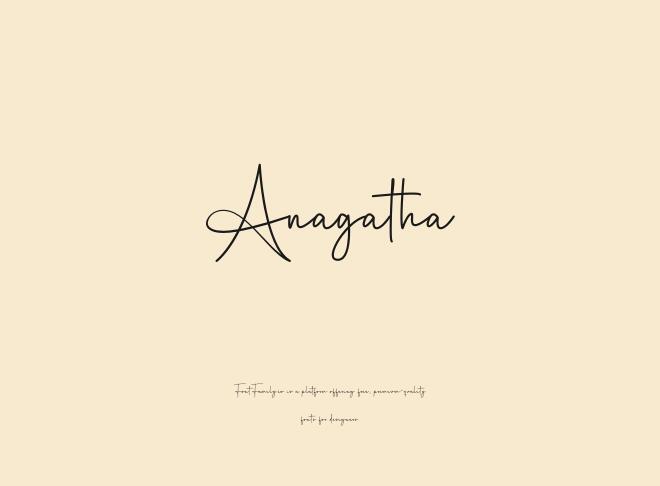
Anagatha Font
Anagatha Font is a contemporary and elegant handwriting typeface designed by the Creative Foundry. Its distinct and smooth curves make it an excellent choice for a wide range of design projects including logos, wedding invitations, social media posts, and more. Compared to other fonts, Anagatha Font offers a unique blend of modern and timeless appeal that can add a touch of sophistication to your designs. Its versatility makes it a go-to font for designers looking to strike a balance between readability and style. Anagatha Font's modern handwritten style is free to download and ideal for those seeking a stylish yet practical font. Its elegance and charm make it a standout choice in the world of typography.